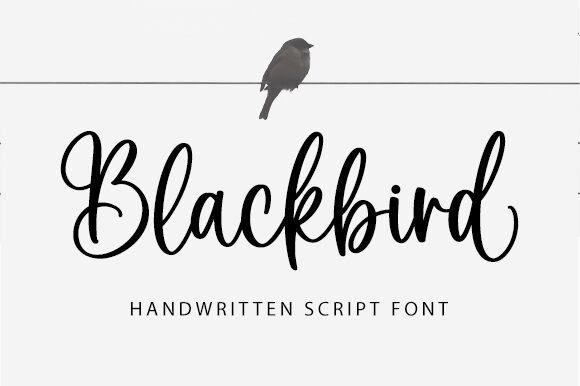
Blackbird
Blackbird is an elegant calligraphy font designed by Aldi Raya Pradipta. With its light weight, it's perfect for adding a sophisticated touch to projects such as wedding invitations, greeting cards, and book covers.